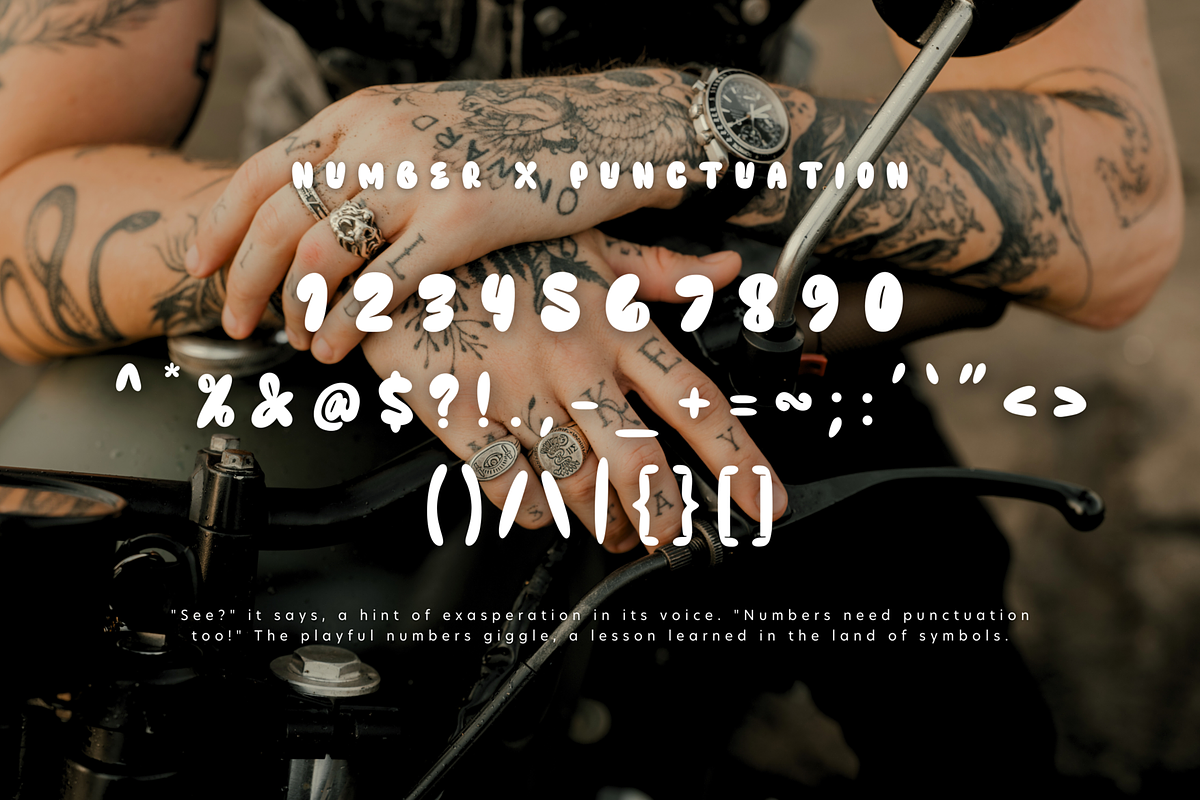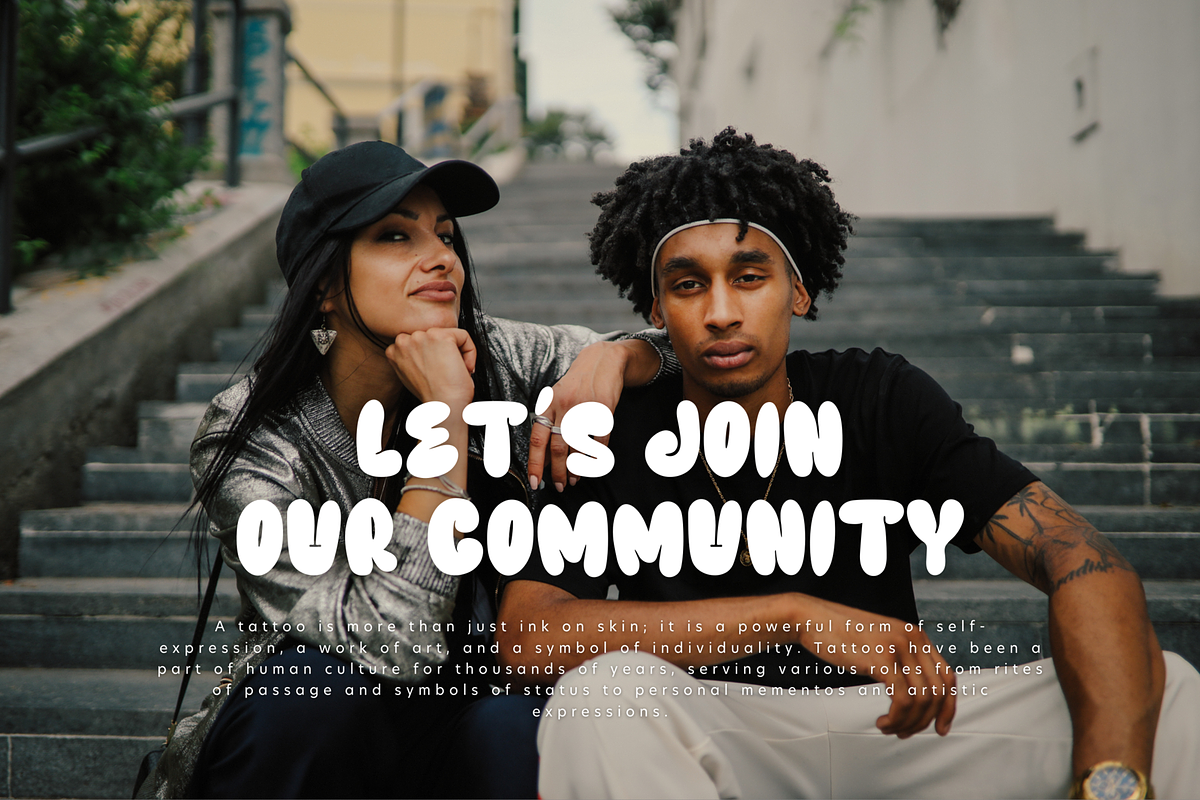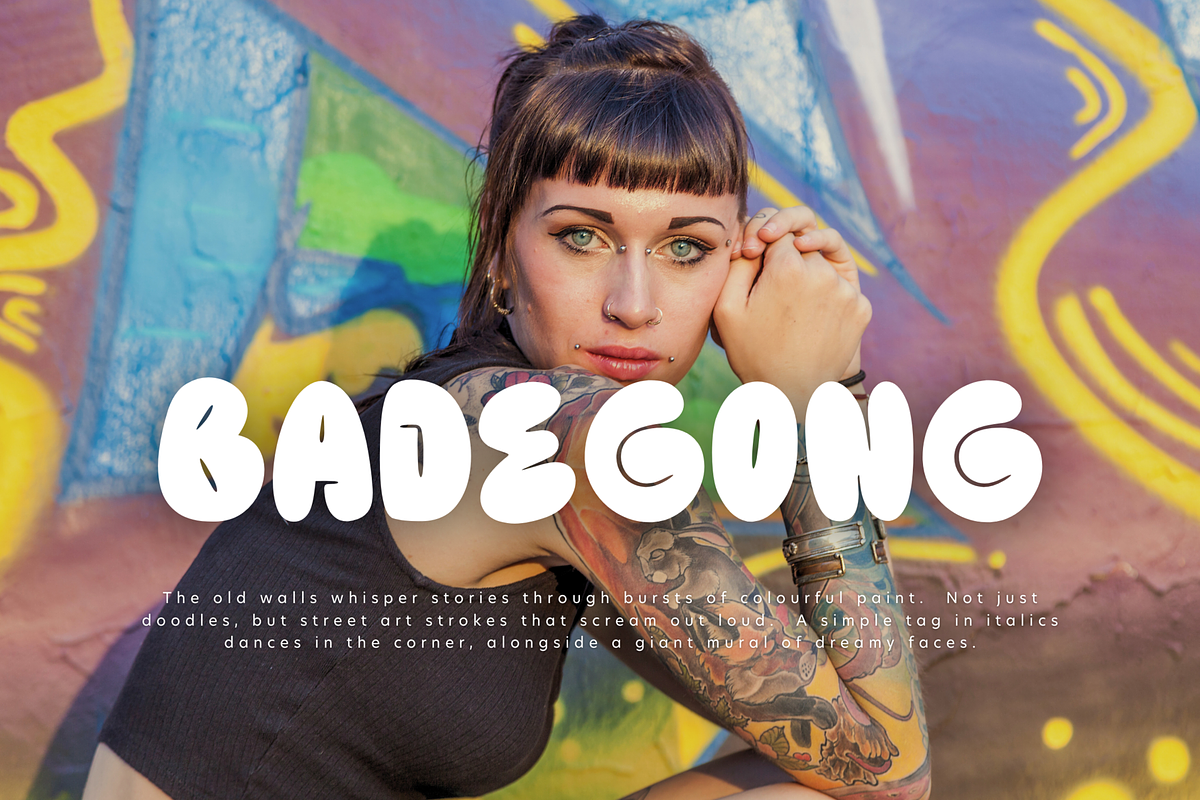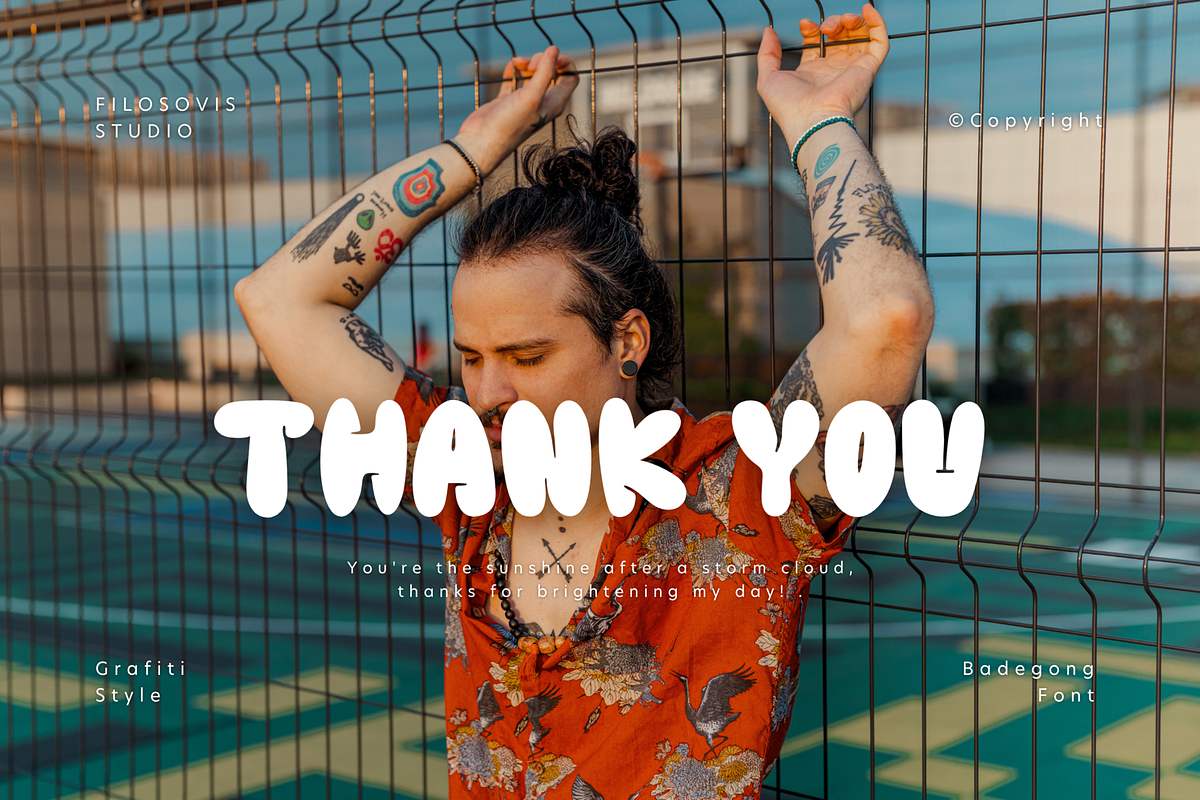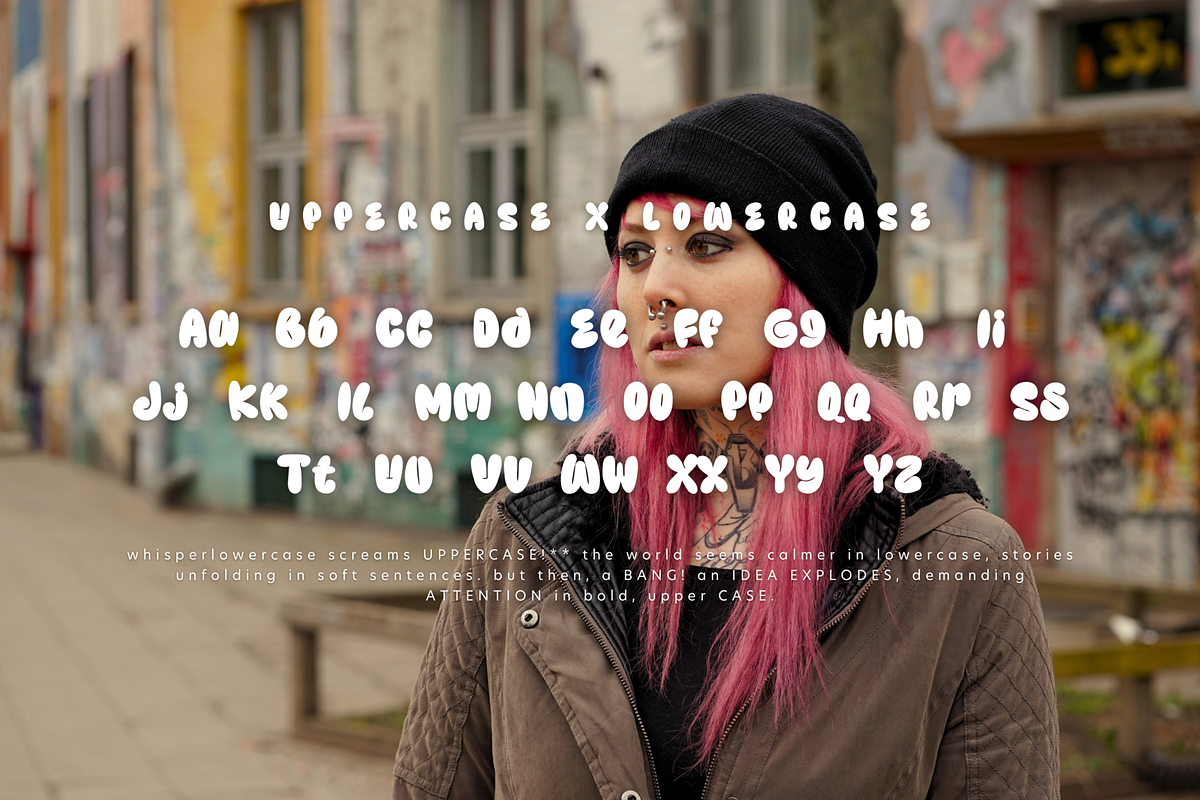
Badegong | Symbols Display
Badegong font is characterized by a symbols font with modern letter design. The slab symbols font style also adds a simple and attractive feel that is approachable, making it a friendly and attractive choice for any project.